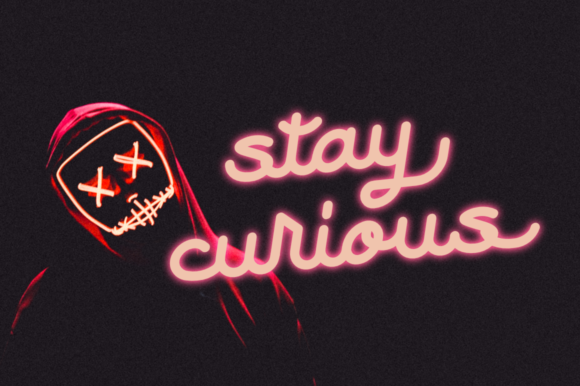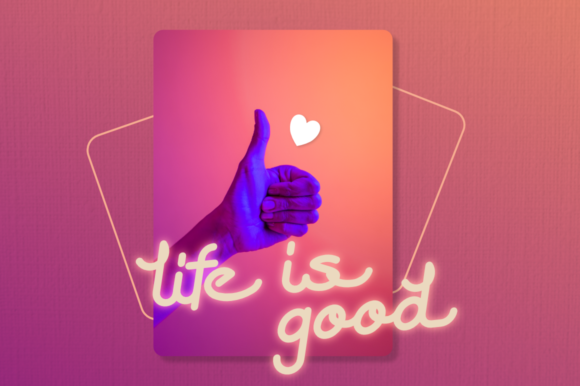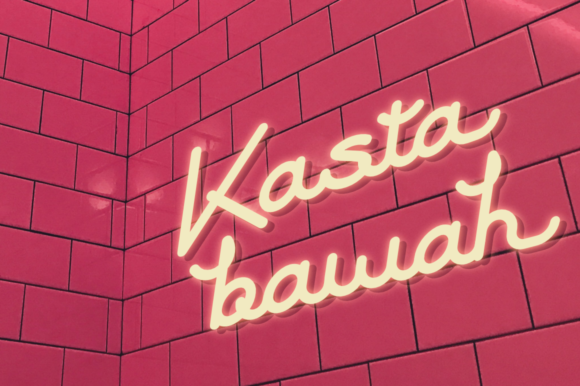
Introduction to Neonllimitted Font
Have you ever stared at a blank canvas, struggling to find the perfect font to bring your creative project to life? You’ve poured your heart and soul into the design, but something’s missing. That’s when you stumble upon the perfect match – a font that’s as unique as your vision.
Enter the Neonllimitted Font, a minimalist and elegant handwritten font that’s sure to elevate your creative ideas. With its versatility and high-quality design, this font is a valuable resource for designers looking to add a touch of sophistication to their projects.
Whether you’re working on a free download or a high-end design, the Neonllimitted Font is a game-changer. Its transparent background and PUA encoded glyphs make it easy to access and customize, giving you the freedom to get creative. So, what are you waiting for? Add the Neonllimitted Font to your design arsenal and watch your projects shine with a new level of style and sophistication.
Key Features of Neonllimitted Font
- High-quality design resource ideal for creative projects, including digital art and graphic design.
- Unique, eye-catching font with a neon-lit effect, perfect for adding a touch of modernity to your designs.
- Designed with versatility in mind, making it suitable for a wide range of creative projects, from logos to typography.
Honest Review: Neonllimitted Font
I recently had the chance to work with the Neonllimitted Font, and I have to say it’s been a game-changer for my creative projects. This font is perfect for adding a touch of neon flair to your designs.
Here are some things that work well: ✨
- High-quality design: The Neonllimitted Font is beautifully crafted and has a unique, eye-catching style that’s sure to grab attention.
- Transparent background: This feature allows you to easily layer the font over other design elements, making it a great resource for creative projects.
However, there are a few limitations to keep in mind: ⚠️
- Limited font styles: While the Neonllimitted Font is versatile, it’s primarily designed for displaying text in a bold, neon style. If you’re looking for a more traditional font, you may find it lacking.
- Not ideal for small text: Due to its bold design, the Neonllimitted Font may not be the best choice for small text or intricate designs.
Overall, I’m thoroughly impressed with the Neonllimitted Font. It’s a fantastic design resource that’s perfect for adding a touch of neon glamour to your creative projects. With its high-quality design and free download option, it’s definitely worth checking out.
Tips for Getting the Most Out of Neonllimitted Font
Experiment with different font sizes, colors, and combinations to find the perfect look for your creative project. Use the font on a transparent background to create a striking design element.
Neonllimitted Font is perfect for a variety of design projects, including social media graphics, logo designs, and presentations. Its high-quality design makes it an excellent addition to any design resource.